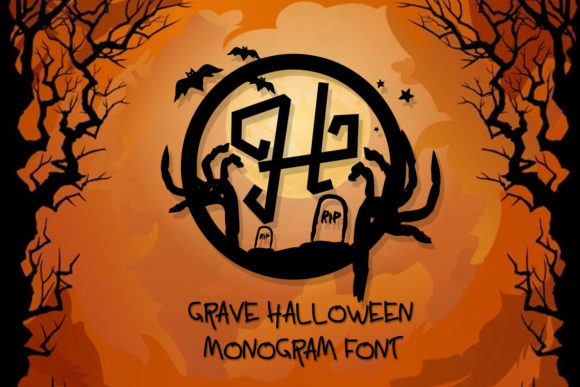
Get ready to make your Halloween creations stand out with Grave Halloween Monogram - a haunting and decorative font that will cast a spell on your audience! This spooky font is perfect for adding a touch of mystery to your invitations, signs, or decorations. It's also perfect for crafting unique and personalized monogram designs that will make your Cricut creations the talk of the town.
With Grave Halloween Monogram, you can:
* Create invitations that will send shivers down your guests' spines
* Make eye-catching signs that will draw attention to your Halloween party
* Personalize decorations that will make your home the spookiest on the block
* Design one-of-a-kind monograms that will make your Cricut projects the envy of all
Don't let your Halloween creations be boring - give them a touch of spooky style with Grave Halloween Monogram!
With its intricate details and flowing lines, Grave Halloween Monogram is a font that will add a touch of sophistication to your Halloween projects. It's perfect for creating elegant invitations, sophisticated signs, and stylish decorations. Whether you're a professional designer or a crafty hobbyist, Grave Halloween Monogram is the perfect font to take your Halloween creations to the next level.